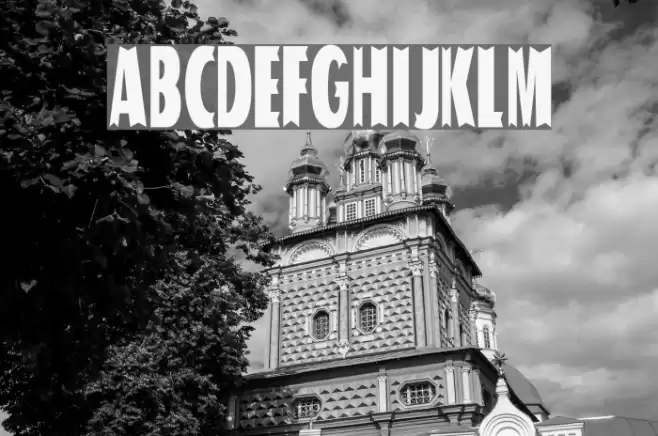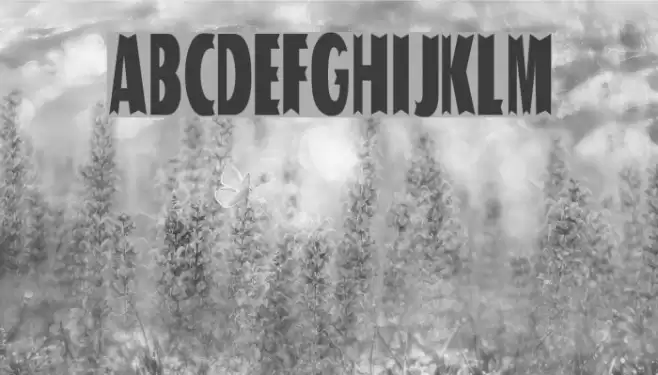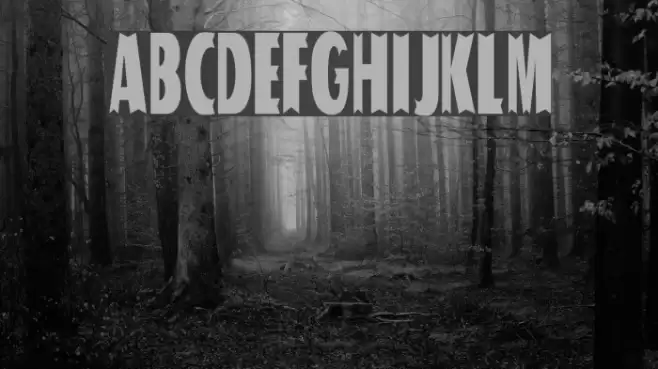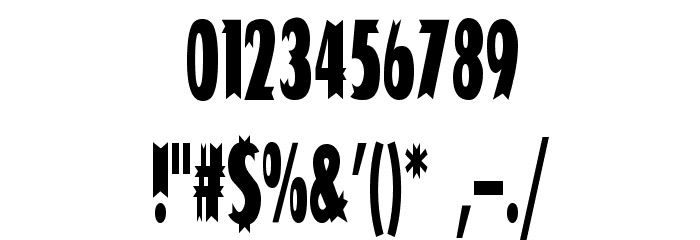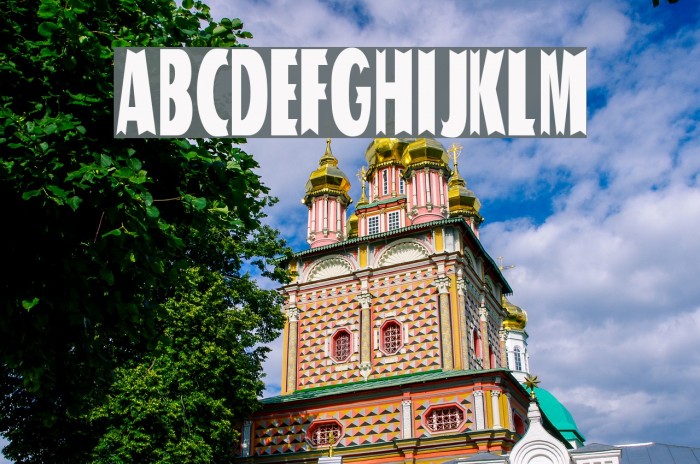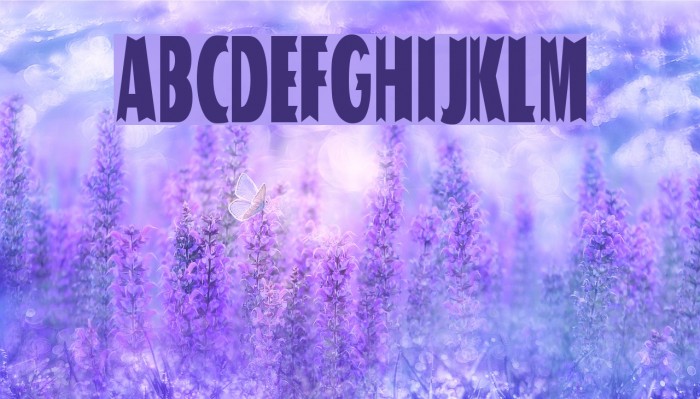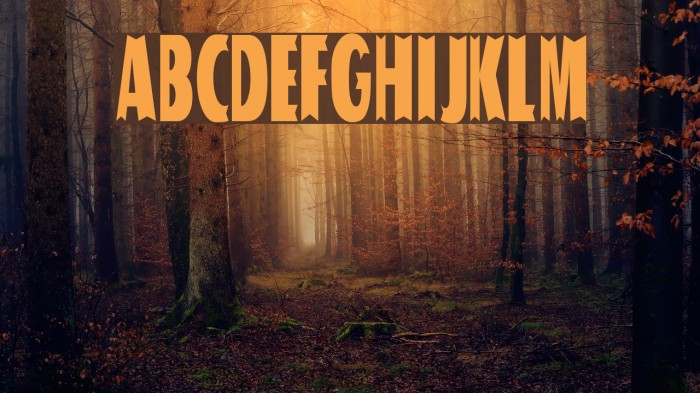
Tofu Font
Tofu Description
This font features a bold and dynamic design with sharp, angular edges that give it a distinctive and eye-catching appearance. The uppercase letters are particularly striking, with a strong presence that commands attention. The lowercase letters maintain the same boldness but with a slightly more compact form. The numbers and special characters are consistent with the overall style, providing a cohesive look across all elements. The font's unique style makes it ideal for projects that require a strong visual impact.
A bold, angular font with a striking and dynamic appearance from Decorative fonts.
- Proposed Projects: Ideal for posters, headlines, branding, and any project needing a bold statement.